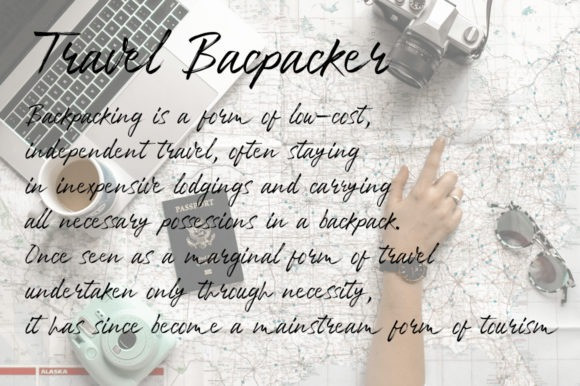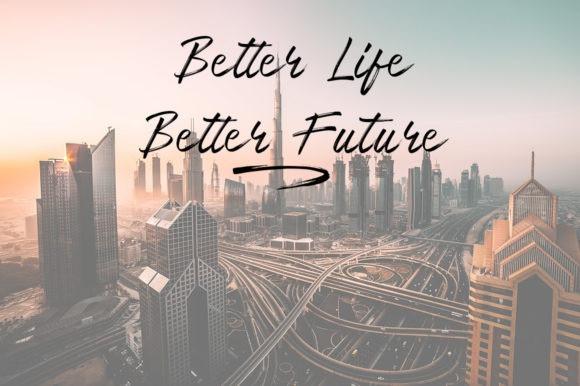
Hynmand Script Font
Hynmand Handdrawn Font with new and modern styles. A collection of letters and numbers suitable your projects also great for Logotype, Branding Design, Logo Design, Digital Lettering Arts, T-Shirt/Apparel, Poster, Magazine, Signs, Wedding Invitation, Birthday Invitation, Advertising Design, and any design needs.